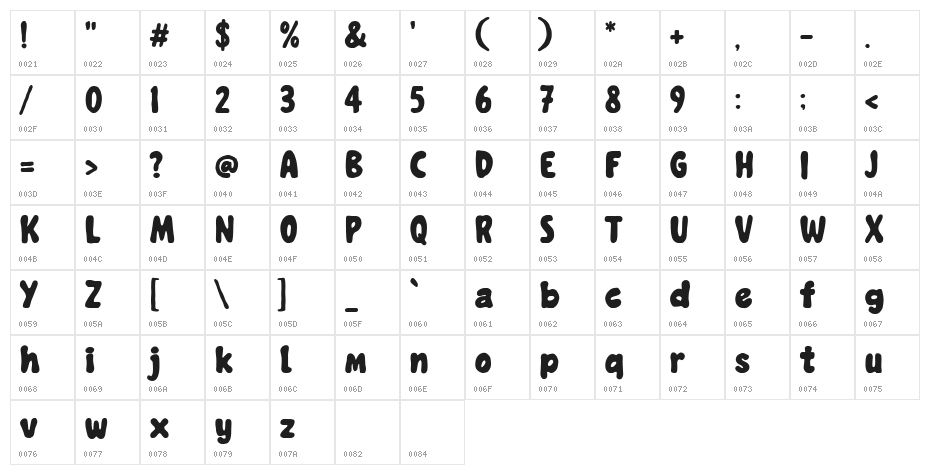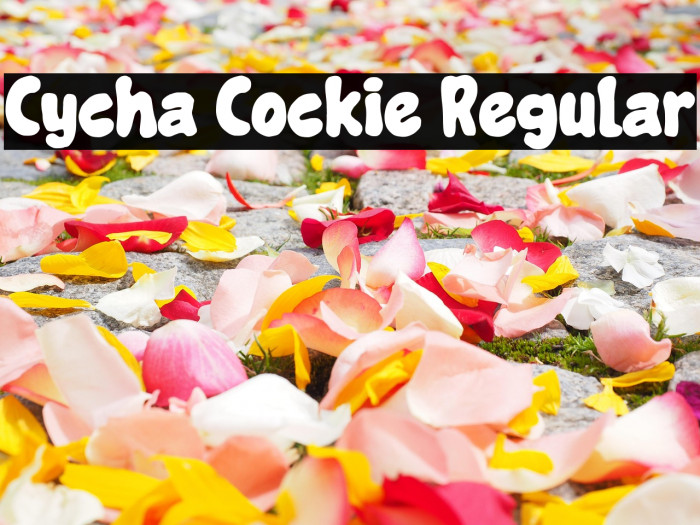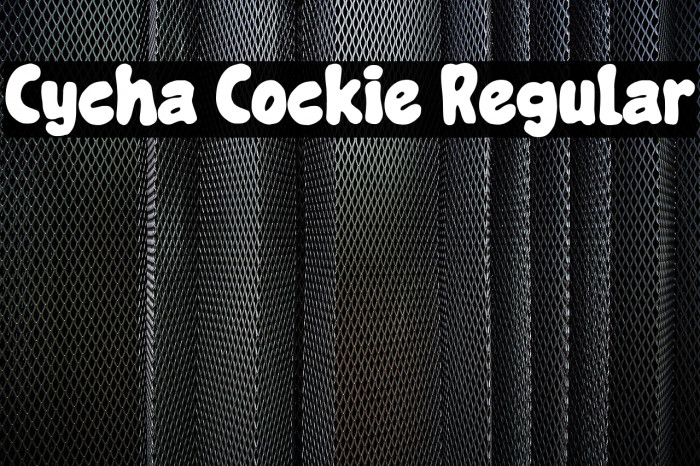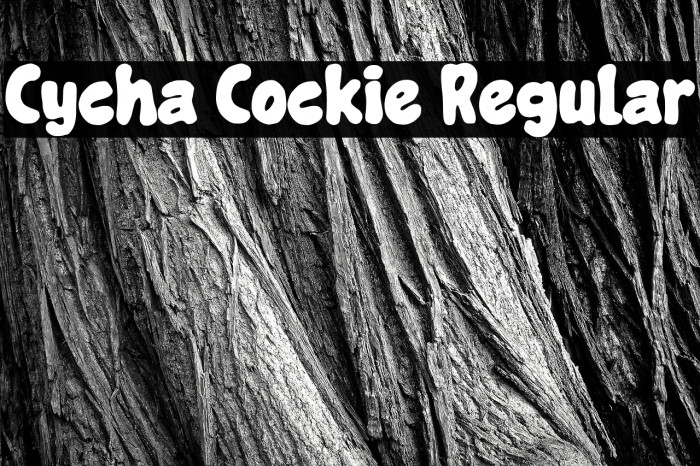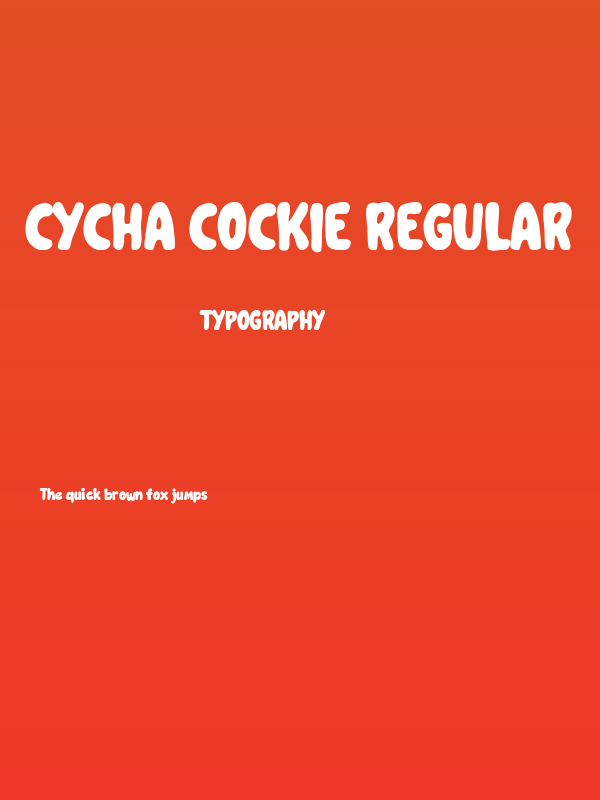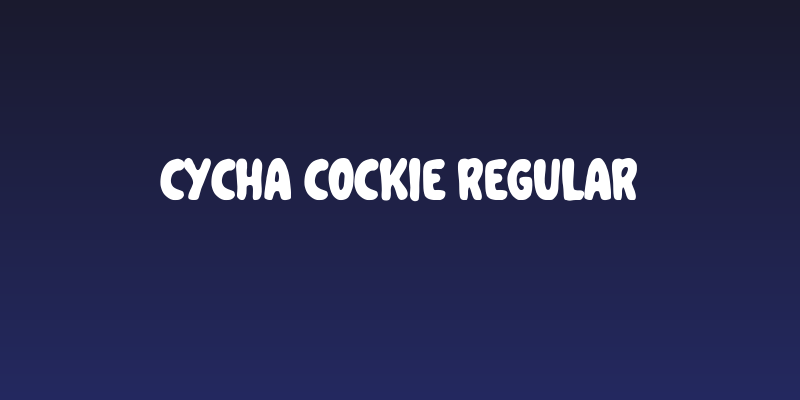
Cycha Cockie Regular Font
Cycha Cockie Regular Description
A playful, bold, and rounded font with a hand-drawn appearance, suitable for informal and fun designs.
| Overall Style | Playful, Casual |
| Use Case | Headlines, Posters, Branding |
| Proposed Projects | Children's books, playful branding, casual posters. |